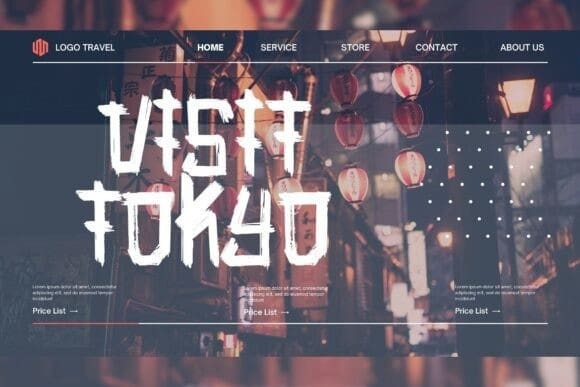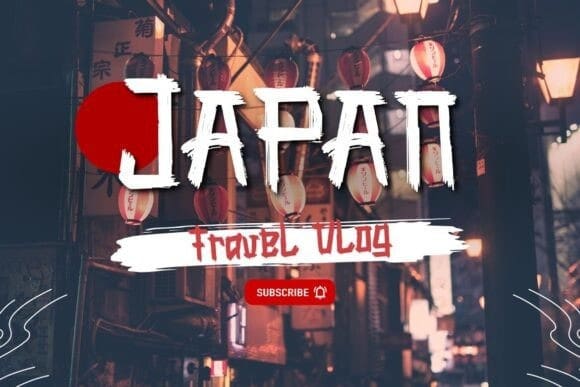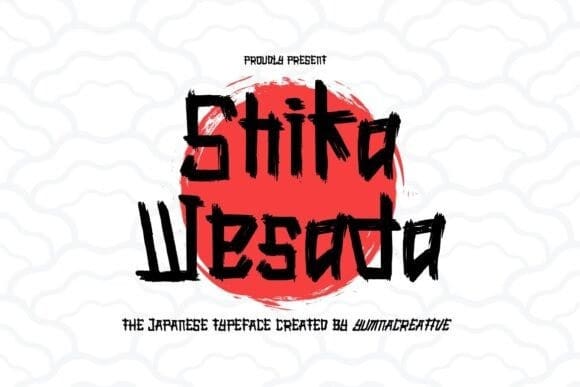
Shika Wesada Font
Shika Wesada Font is a Japanese brush used for calligraphy and painting. It is known for its fine, soft bristles, which allow for smooth, flowing strokes. The brush is often made from high-quality materials and is ideal for creating detailed, delicate artwork.